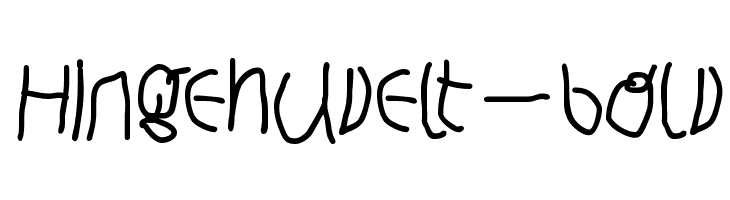
A playful, hand-drawn style font with irregular, dancing letterforms.
A playful, handwritten font with irregular, organic letterforms.
A playful, irregular handwritten font with dynamic strokes.
A whimsical, hand-drawn font with irregular, playful strokes.
A playful, handwritten font with bold, irregular strokes and dynamic flow.
A bold, hand-drawn font with dynamic, irregular strokes and artistic flair.
A bold, playful font with irregular, organic shapes and thick strokes.
A hand-drawn, expressive font with irregular strokes and artistic flair.
A bold, playful font with quirky, irregular letterforms and whimsical elements.